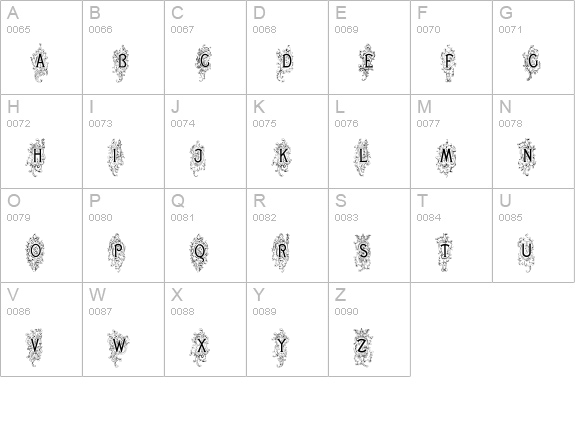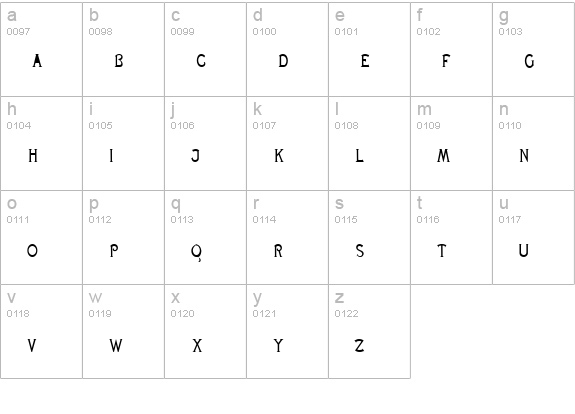
Renaissance Scrolls Font Details
Introducing Renaissance Scrolls font, a captivating typeface that seamlessly combines the elegance of the Renaissance era with a contemporary twist. Designed with meticulous attention to detail, this font captures the essence of intricate calligraphy, as if each character was meticulously crafted by a master scribe. With its graceful curves and ornate flourishes, Renaissance Scrolls lends a touch of sophistication and refinement to any design project. Whether used for invitations, wedding stationery, branding, or editorial layouts, this font exudes a timeless charm that is sure to captivate the eye. But what truly sets Renaissance Scrolls apart is its versatility and accessibility. This font is not only aesthetically pleasing but also incredibly user-friendly, making it suitable for both professional designers and novices alike. Its smooth lines and well-defined characters ensure legibility at any size, while its extensive character set allows for multilingual support. And here's the best part – Renaissance Scrolls is available for free! As a generous offering to the design community, this font can be easily downloaded at FontsMarket.com. Now, you can effortlessly add a touch of elegance to your projects without breaking the bank. So why wait? Embrace the allure of the Renaissance with Renaissance Scrolls font and watch your designs come to life.